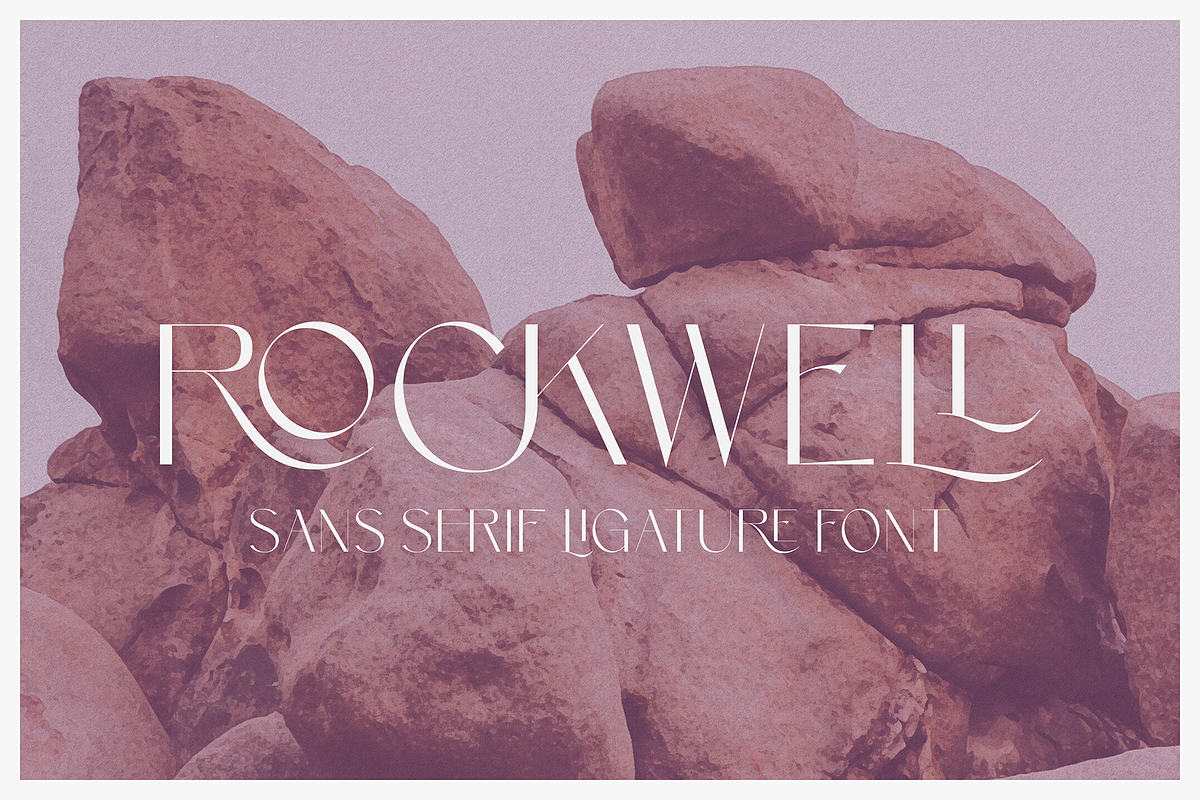
Rockwell – Sans Serif Ligature Font Free Download is a bold and sophisticated typeface designed to deliver modern elegance with a strong visual presence. Featuring sleek sans serif structure and creative ligature combinations, this font is ideal for branding, fashion editorials, packaging, logos, and contemporary web design.
Its clean lines and stylish ligatures create visual interest while maintaining readability, making Rockwell a perfect fit for both professional and artistic projects. Whether you're designing a high-end brand identity or a minimalist layout, this font adds class and clarity.